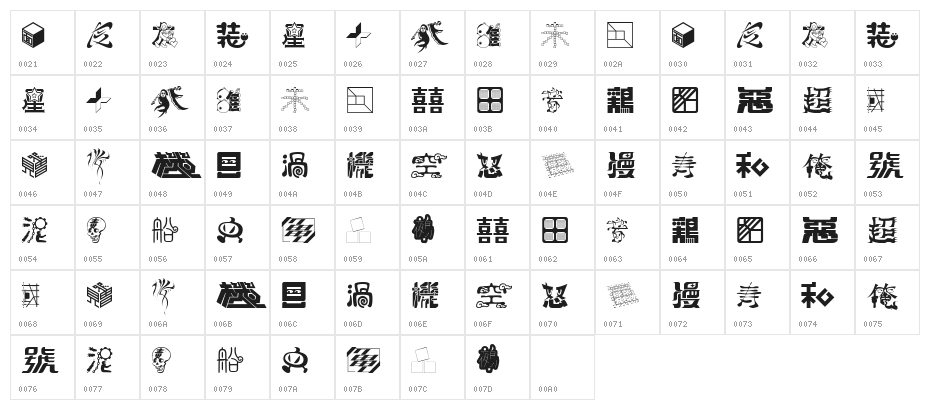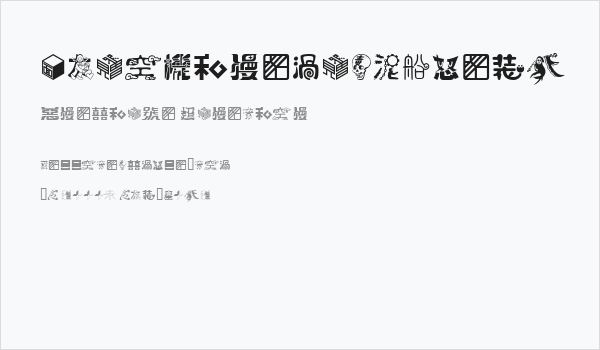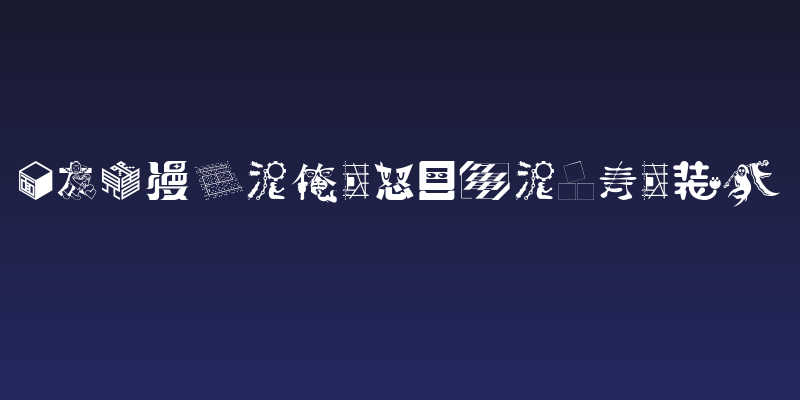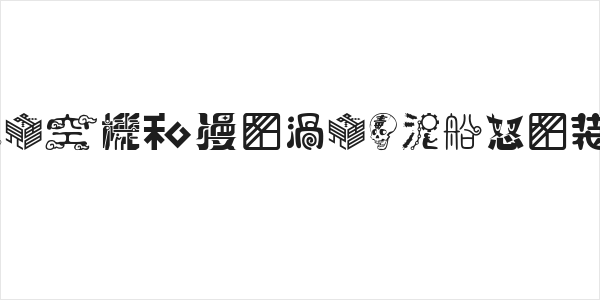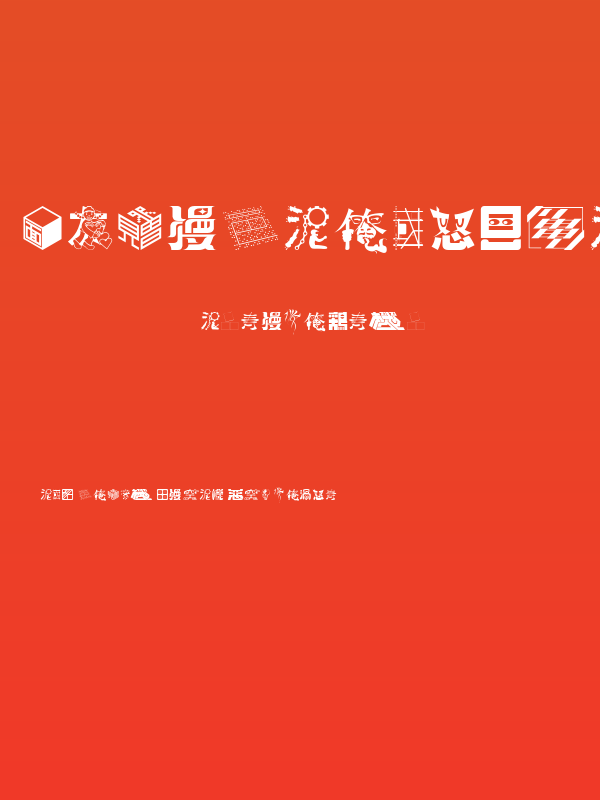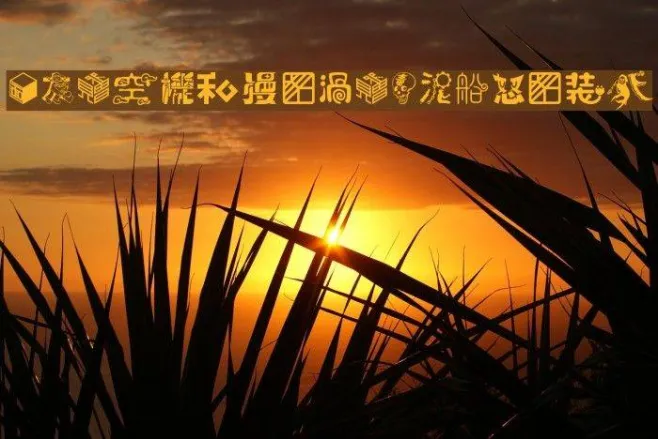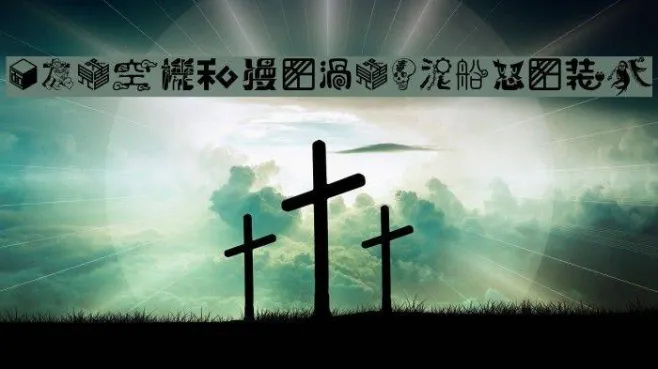
02FontremixType36 Font
02FontremixType36 Description
This font is a highly decorative and eclectic collection of characters, each uniquely styled with intricate details and artistic elements. The characters are a mix of abstract shapes, illustrative designs, and playful motifs, making it visually striking and unconventional. The font includes a variety of symbols and icons, each with its own distinct flair, ranging from geometric patterns to whimsical illustrations. The overall appearance is bold and eye-catching, with a strong emphasis on creativity and artistic expression. This font is not designed for readability in traditional text but rather for artistic and decorative purposes.
| Use Case | Logos, Art projects, Posters |
| Proposed Projects | Ideal for creative projects such as posters, album covers, art installations, and any design work that requires a bold, artistic touch. |